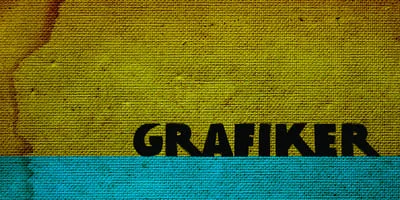
Grafiker Font
The Grafiker Font excels in various design applications including professional graphic design studio branding, visual communication agency marketing, creative design consultancy materials, graphic arts education signage, design portfolio presentations, visual design workshop promotions, graphic design conference communications, design agency packaging, creative studio identities, and distinguished design projects that demand graphic precision and creative sophistication.
What makes the Grafiker Font exciting is its masterful embodiment of graphic design expertise and visual communication excellence through letterforms that capture the essence of professional design thinking and the sophisticated craft of graphic artistry. This typeface demonstrates exceptional design intelligence through carefully engineered characters that suggest the precise methodology of graphic design, the creative problem-solving of visual communication, and the professional artistry that makes graphic design so visually powerful and communicatively effective. The font's graphic personality makes it perfect for design agencies and creative professionals seeking to communicate design authenticity, visual expertise, and the kind of graphic sophistication that creates memorable design experiences through typography that literally designs with professional precision.
The Grafiker Font family typically includes creative weight variations that enhance the graphic design aesthetic, featuring professional styling options and extended character sets optimized for design communications and creative applications. These family options often include design-inspired alternates, graphic symbols, and creative decorative elements that provide designers with comprehensive tools for creating authentically professional typography that celebrates graphic design while maintaining contemporary appeal and creative credibility.
Design professionals and creative agencies consistently select Grafiker Font for projects requiring typography that communicates graphic design authenticity and creative sophistication. This typeface delivers exceptional performance in design marketing, creative branding, and visual communications where establishing expertise and creating professional design atmosphere is essential for creative industry engagement. The font's graphic character makes it particularly effective for portfolio and agency applications. Download Grafiker Font today to access this creatively professional typeface that transforms design communications with its graphic elegance and visual sophistication, creating compelling creative experiences that honor the magnificent artistry of graphic design while celebrating the professional excellence that defines authentic visual communication and graphic design mastery.